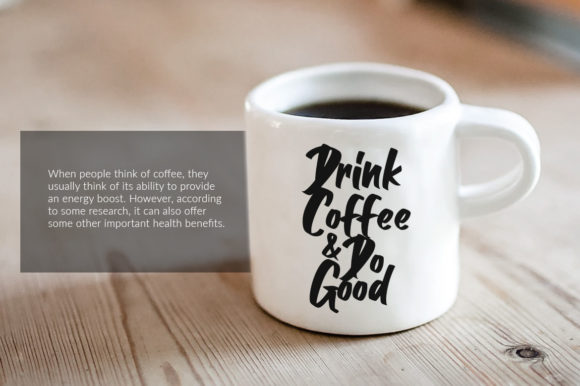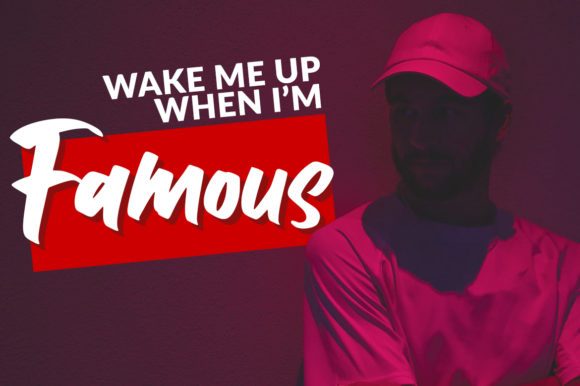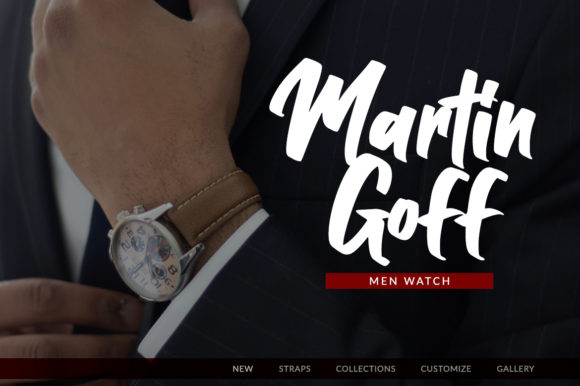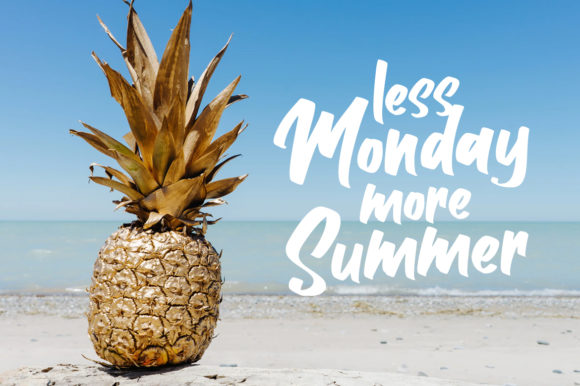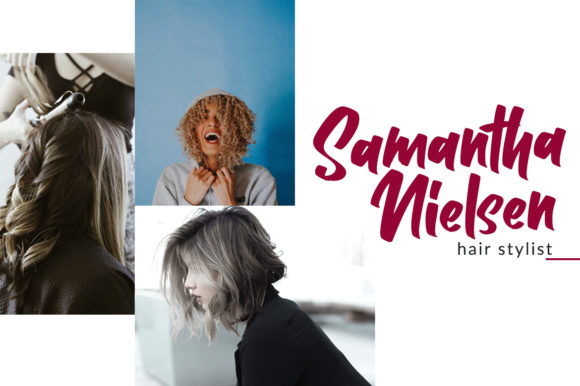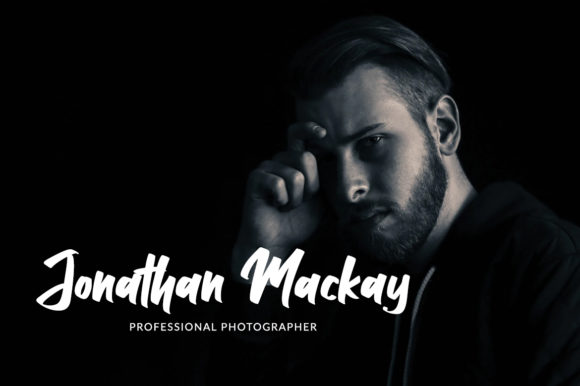
Balleho Font: Unleash Your Creativity with Bold and Unique Brush Strokes
In the world of typography, fonts play a crucial role in conveying messages, expressing emotions, and adding personality to designs. For designers and crafters looking for a bold and eye-catching font, Balleho Font is an excellent choice. Made with bold and unique brush strokes, Balleho Font is perfectly suited for a wide variety of projects, from creative branding and advertising to DIY crafts and digital art.
What Makes Balleho Font Stand Out?
Balleho Font boasts a distinctive and stylish appearance, characterized by its bold and expressive brush strokes. Each letter is carefully crafted to exude a sense of confidence and energy, making it perfect for designs that require a strong visual impact. The font’s unique texture and organic feel give it a hand-crafted look that’s both modern and rustic.
Key Features of Balleho Font
- Bold and Unique Brush Strokes: Balleho Font features bold and expressive brush strokes that add a touch of personality to your designs.
- Highly Versatile: Suitable for a wide range of projects, including branding, advertising, packaging, and digital art.
- Easy to Read: Despite its bold appearance, Balleho Font remains highly legible, making it perfect for use in both digital and print designs.
- Hand-Crafted Look: The font’s organic texture and unique feel give it a hand-crafted look that’s both modern and rustic.
Use Cases for Balleho Font
Balleho Font is an incredibly versatile font that can be used in a variety of design projects. Here are some examples:
- Branding and Logo Design: Create a bold and memorable brand identity with Balleho Font.
- Advertising and Marketing: Use Balleho Font to grab attention and make a lasting impression in your ads and marketing materials.
- Packaging Design: Add a touch of personality to your product packaging with Balleho Font.
- Digital Art and Illustration: Incorporate Balleho Font into your digital art and illustrations for a unique and eye-catching look.
- DIY Crafts and Projects: Use Balleho Font to add a personal touch to your DIY crafts and projects, such as handmade cards, invitations, and gift tags.
Tips for Using Balleho Font Effectively
To get the most out of Balleho Font, here are some tips to keep in mind:
- Use it as a Headline Font: Balleho Font is perfect for use as a headline font, where its bold and attention-grabbing appearance can shine.
- Experiment with Colors: Try pairing Balleho Font with different colors to create a unique and eye-catching look.
- Mix and Match with Other Fonts: Combine Balleho Font with other fonts to create a visually appealing contrast and add depth to your design.
Balleho Font is a bold and unique font that’s perfect for designers and crafters looking to add a touch of personality to their projects. With its bold and expressive brush strokes, highly versatile design, and easy readability, Balleho Font is an excellent choice for a wide range of design applications. Whether you’re creating a brand identity, advertising materials, or digital art, Balleho Font is sure to make a lasting impression.